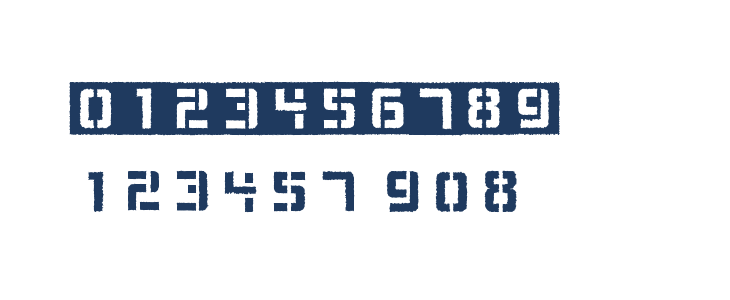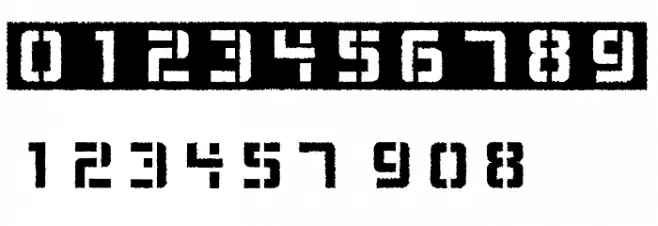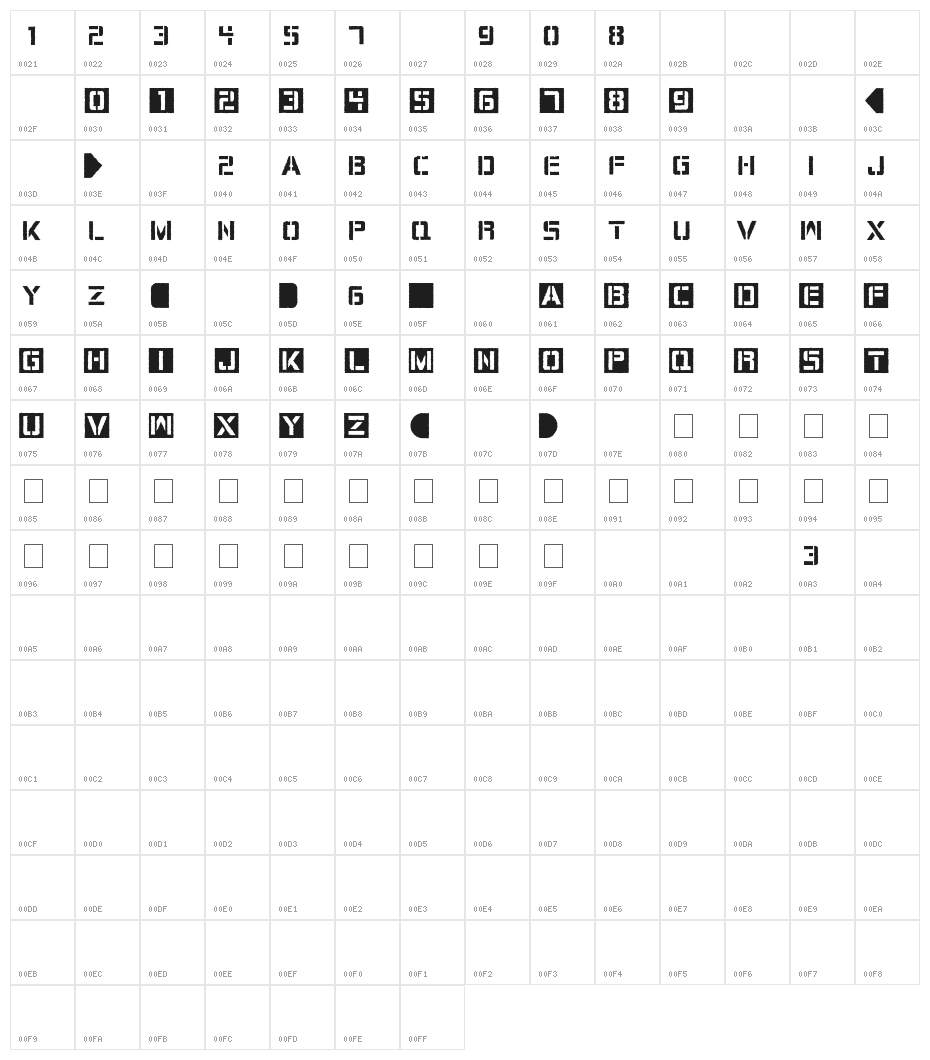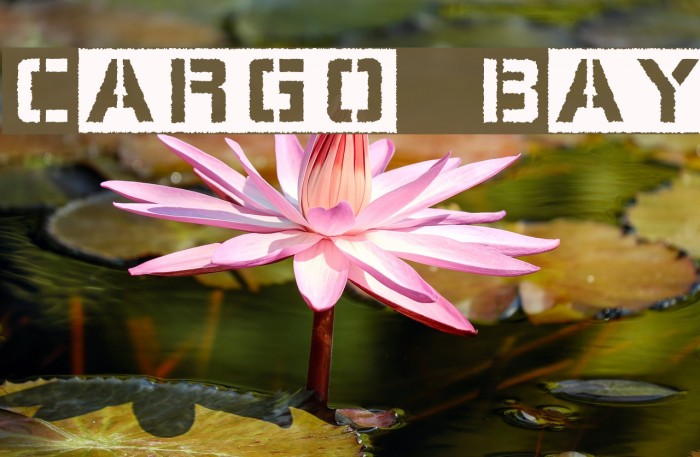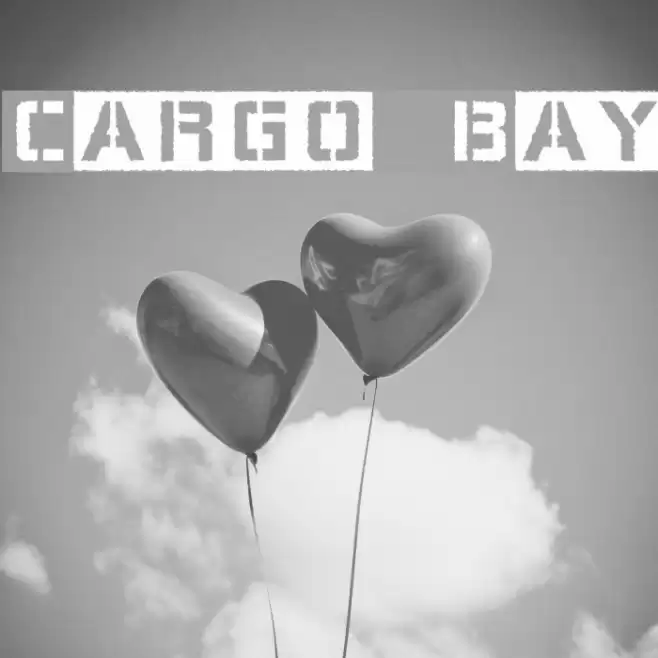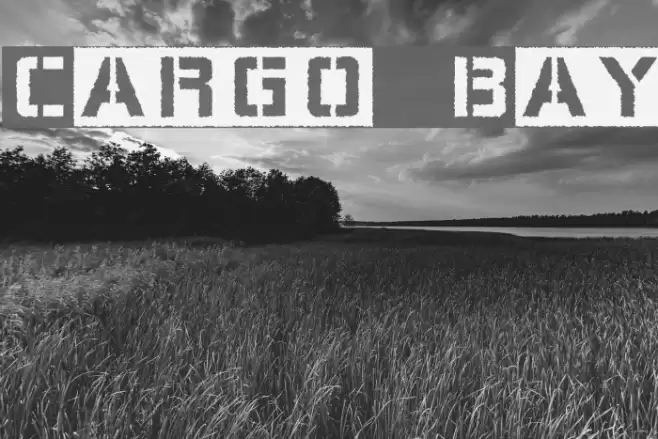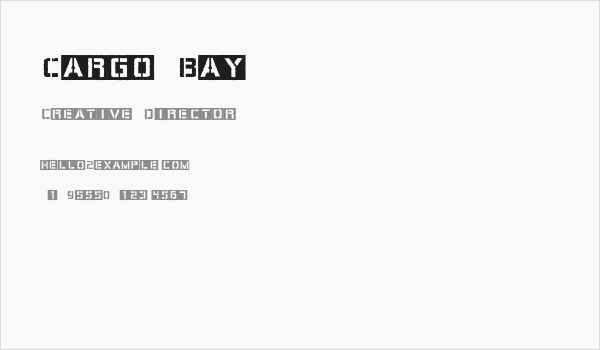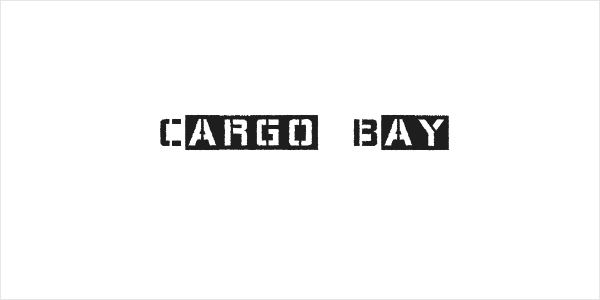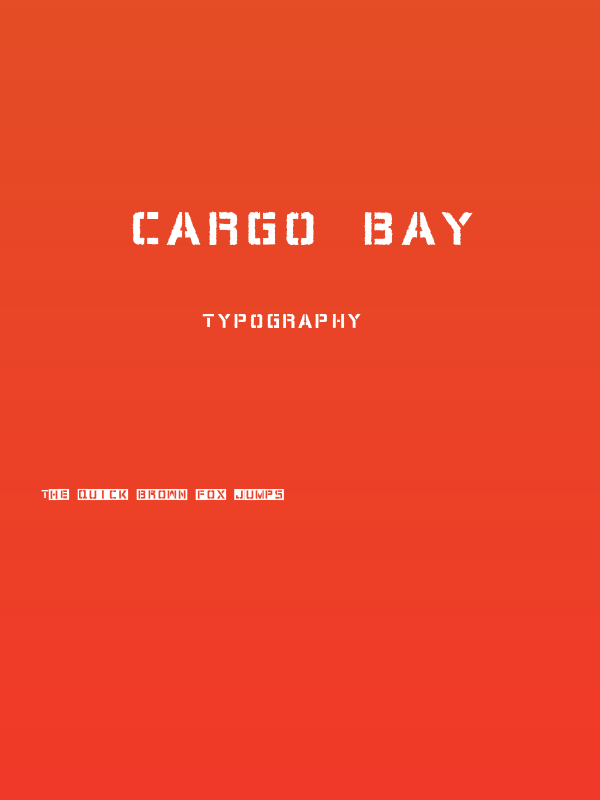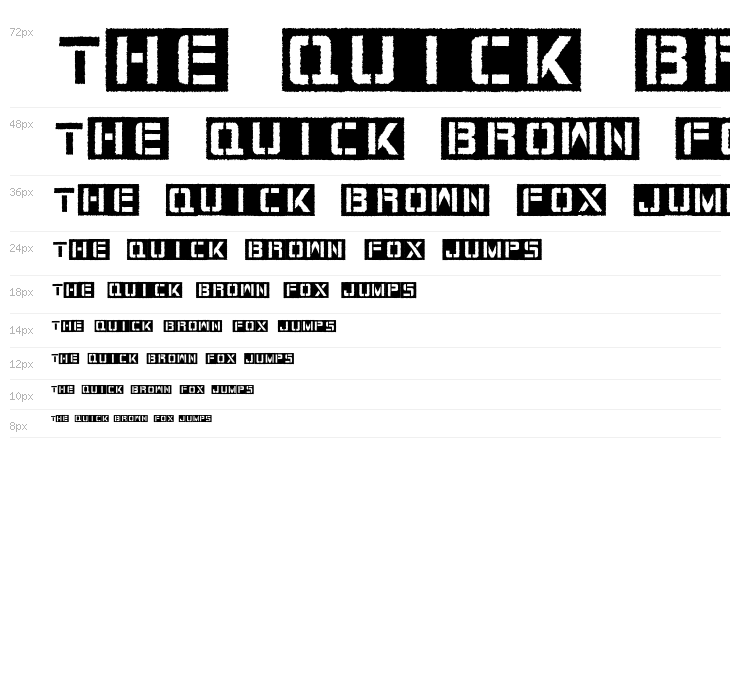
Cargo Bay Font
Cargo Bay Description
This font features a bold, industrial design with a stencil-like appearance, reminiscent of cargo markings or military stencils. The characters are blocky and geometric, with sharp angles and a consistent width throughout. The uppercase letters are uniform in height, creating a strong and cohesive look. The numbers and special characters maintain the same robust style, ensuring a harmonious appearance across all text. The font's rugged and utilitarian aesthetic makes it ideal for projects that require a strong, impactful presence. Its stencil design allows for easy readability while maintaining a distinctive and memorable look.
| Overall Style | Industrial, Stencil |
| Use Case | Headlines, Logos, Signage |
| Proposed Projects | Ideal for branding, packaging, signage, and any project requiring a strong, industrial aesthetic. |